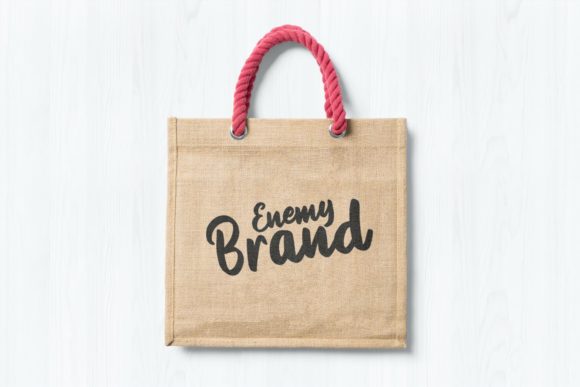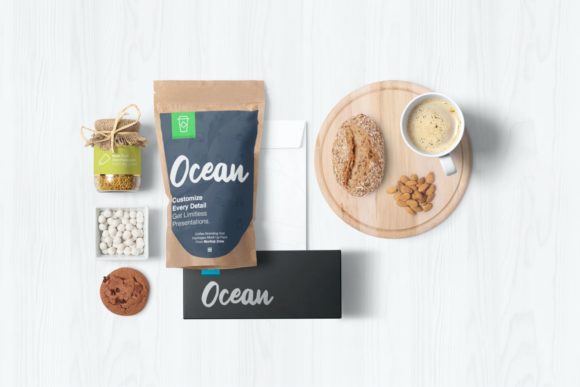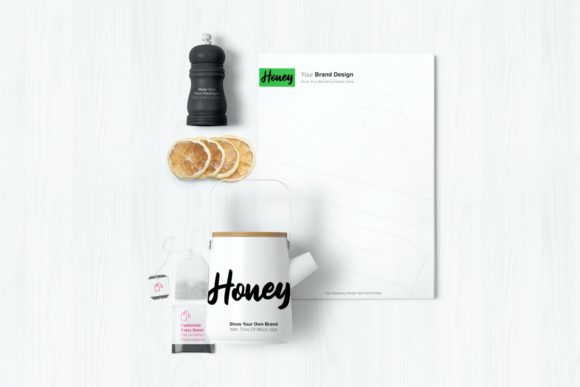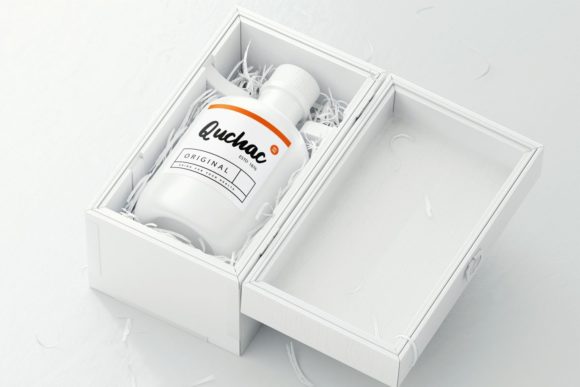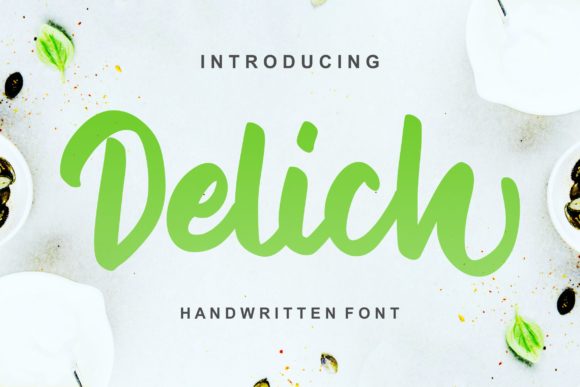
Introducing Delich Font: A Lovely and Modern Script Font
Are you tired of using the same old fonts for your design projects? Look no further! Delich Font is a beautiful and modern script font that is sure to add a touch of elegance and sophistication to any project. With its welcoming character, Delich Font is perfectly suited for a wide variety of projects, from wedding invitations and branding materials to social media graphics and more.
What Makes Delich Font Special?
Delich Font is a unique and stylish script font that is designed to make your designs stand out. Its modern and fresh look is perfect for designers and crafters who want to add a personal touch to their work. The font features beautiful swashes and flourishes that add a touch of elegance and sophistication to any design.
Key Features of Delich Font
- Modern and Fresh Look: Delich Font has a modern and fresh look that is perfect for designers and crafters who want to create unique and stylish designs.
- Welcoming Character: The font has a welcoming character that makes it perfect for a wide variety of projects, from wedding invitations to social media graphics.
- Beautiful Swashes and Flourishes: Delich Font features beautiful swashes and flourishes that add a touch of elegance and sophistication to any design.
- High-Quality Design: The font is designed with high-quality and precision, making it perfect for both personal and commercial use.
How to Use Delich Font
Delich Font is easy to use and can be applied to a wide variety of design projects. Here are a few ways you can use Delich Font:
- Wedding Invitations: Delich Font is perfect for wedding invitations, adding a touch of elegance and sophistication to your designs.
- Branding Materials: The font is also great for branding materials, such as logos, business cards, and brochures.
- Social Media Graphics: Delich Font can be used to create stylish and eye-catching social media graphics, such as Facebook posts and Instagram stories.
- Digital Art: The font can also be used for digital art, such as illustrations and digital paintings.
Why Designers and Crafters Love Delich Font
Designers and crafters love Delich Font for its unique and stylish design. The font is perfect for those who want to add a personal touch to their designs and create something truly special. Here are a few reasons why designers and crafters love Delich Font:
- Unique Design: Delich Font has a unique design that sets it apart from other fonts.
- Easy to Use: The font is easy to use and can be applied to a wide variety of design projects.
- High-Quality: Delich Font is designed with high-quality and precision, making it perfect for both personal and commercial use.
In conclusion, Delich Font is a lovely and modern script font that is perfect for designers and crafters who want to add a touch of elegance and sophistication to their designs. With its welcoming character, beautiful swashes and flourishes, and high-quality design, Delich Font is sure to become a favorite among designers and crafters. Whether you’re working on a wedding invitation, branding materials, or social media graphics, Delich Font is the perfect choice.